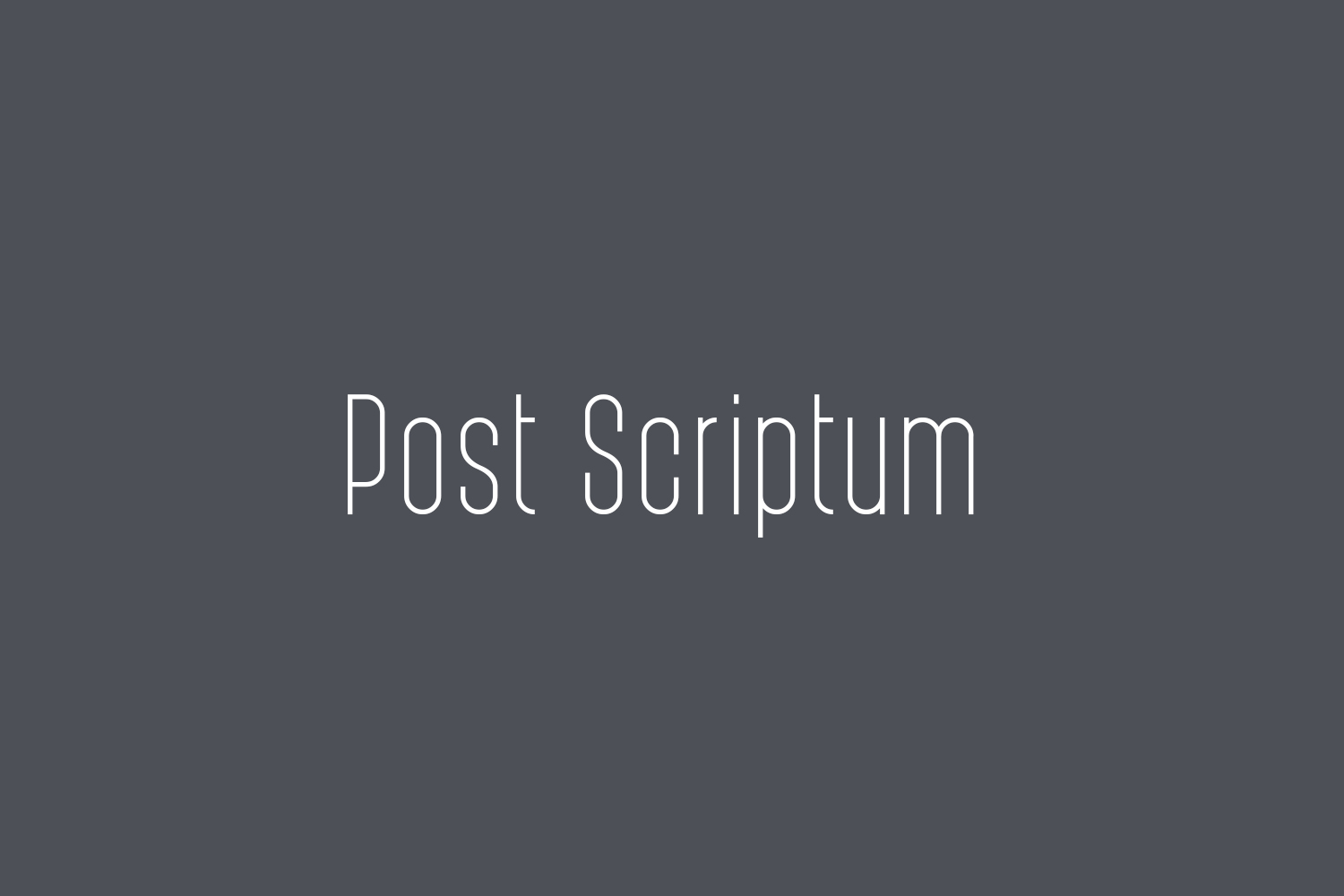
Post Scriptum Free Font is for personal use and created for a clean, elegant look, for print mostly. I wouldn’t recommend it for small sizes on screen, pixels have trouble reading thin lines with consistency and may give unexpected results.
Designed by Levi Szekeres